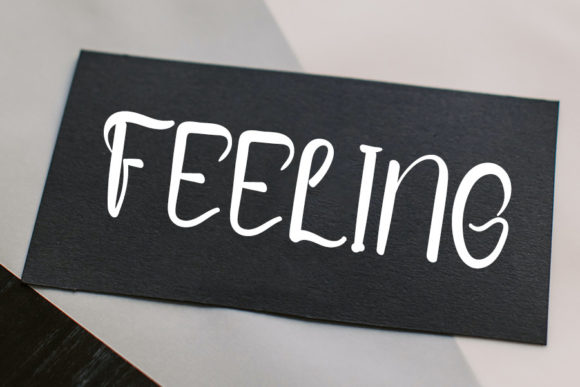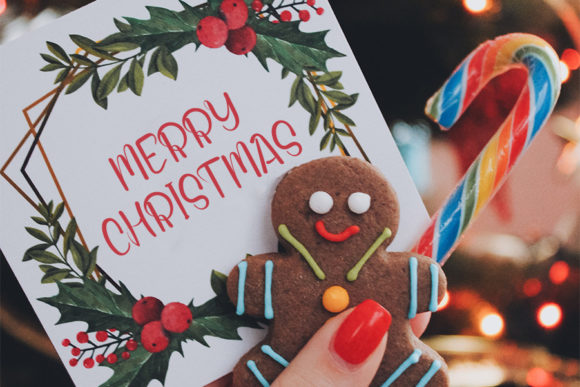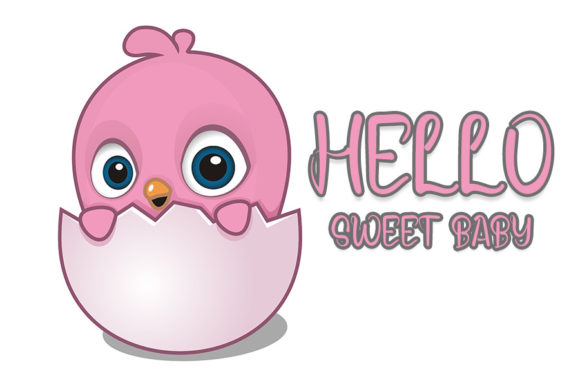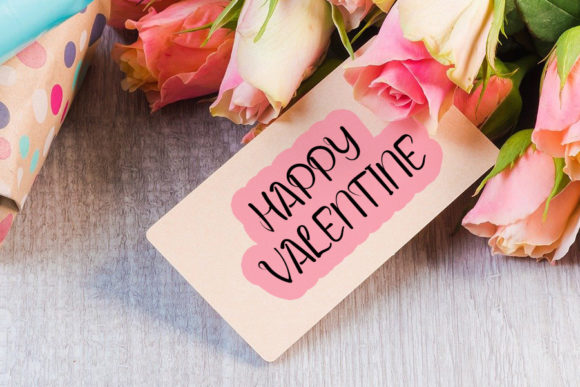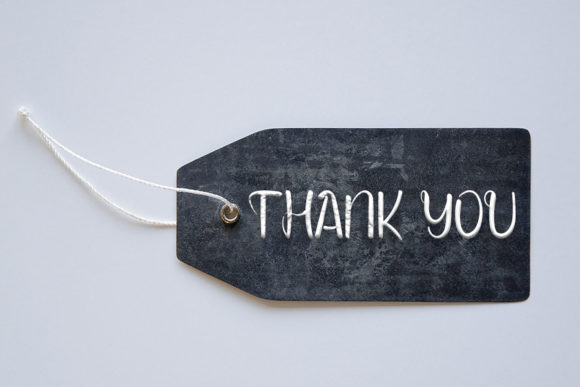
Introducing Best Time Font: Elevate Your Designs with Timeless Elegance
Are you on the hunt for a font that combines playfulness with sophistication? Look no further than Best Time Font, a stunning display font that brings a touch of classic calligraphy to your modern designs. Inspired by the elegance of timeless calligraphy, Best Time Font boasts an impeccable form that is both balanced and varied, making it the perfect addition to enhance the beauty of your projects.
The Inspiration Behind Best Time Font
Best Time Font draws its inspiration from the art of traditional calligraphy, where every stroke and curve is a testament to the artisan’s skill and patience. This font captures the essence of calligraphic elegance, translating it into a digital format that is versatile and easy to use. The result is a font that feels both nostalgic and contemporary, capable of adding a touch of sophistication to any design.
Key Features of Best Time Font
- Playful and Smart: Best Time Font strikes the perfect balance between playfulness and intelligence. Its unique characters are designed to catch the eye, making it ideal for headings, titles, and any design element that needs to stand out.
- Impeccable Form: With its roots in traditional calligraphy, this font features an impeccable form that exudes elegance and refinement. Each letter is crafted with precision, ensuring a harmonious look that elevates your designs.
- Balanced and Varied: The design of Best Time Font is both balanced and varied, offering a range of styles and weights to suit different design needs. This versatility makes it an excellent choice for a wide array of projects, from branding and advertising to packaging and digital media.
Applications of Best Time Font
The versatility of Best Time Font makes it suitable for a multitude of design applications. Here are some of the ways you can use this beautiful font:
- Branding and Logos: Create a memorable brand identity with Best Time Font. Its unique and elegant style can help your brand stand out in a crowded market.
- Advertising and Marketing Materials: Whether you’re designing a poster, flyer, or social media graphic, Best Time Font can add a touch of sophistication and allure to your advertising materials.
- Packaging Design: Elevate your product packaging with a font that communicates luxury, quality, and style. Best Time Font is perfect for product labels, packaging inserts, and more.
- Digital Media: From website headers to video titles, Best Time Font can enhance the visual appeal of your digital content, making it more engaging for your audience.
Why Choose Best Time Font?
In a world where design trends come and go, Best Time Font offers a timeless solution for designers and crafters looking for a font that will stand the test of time. Here are a few reasons why Best Time Font should be your go-to choice:
- Unique Style: Best Time Font offers a unique style that can set your designs apart from the competition.
- Support for Multiple Languages: Best Time Font supports multiple languages, making it a versatile choice for designers working on international projects.
Best Time Font is more than just a font – it’s a design statement. With its playful yet smart display, impeccable form inspired by timeless calligraphy, and balanced and varied style, it’s the perfect tool to elevate your designs. Whether you’re a professional designer or a crafter, Best Time Font offers the versatility and elegance you need to bring your projects to life. Make the best impression with Best Time Font – the ideal choice for those who appreciate the beauty of well-crafted typography.